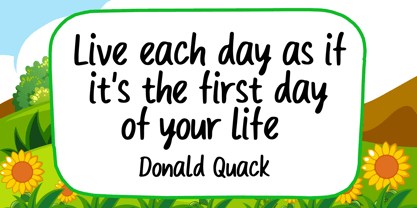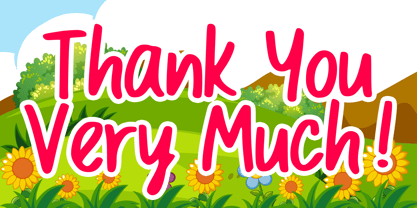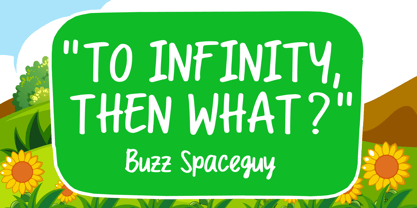
Okay Genuine
by Mvmet
The Okay Genuine Font Family was designed by Gabriel Valentinus and published by Mvmet. Okay Genuine contains 1 styles. More about this family
Okay Genuine is a vibrant and playful marker-style handwritten font that draws inspiration from authentic handwriting. Perfect for enhancing various design projects, this font brings an elevated touch to your creative endeavors. Utilize Okay Genuine for an array of applications including stickers, t-shirt designs, merchandise, captivating logos, magazine or book covers, comics, cartoon illustrations, and everyday typing. Its unique style adds an engaging and trendy flair to your designs, making them stand out and resonate with audiences.
Designers: Gabriel Valentinus
Foundry: Mvmet